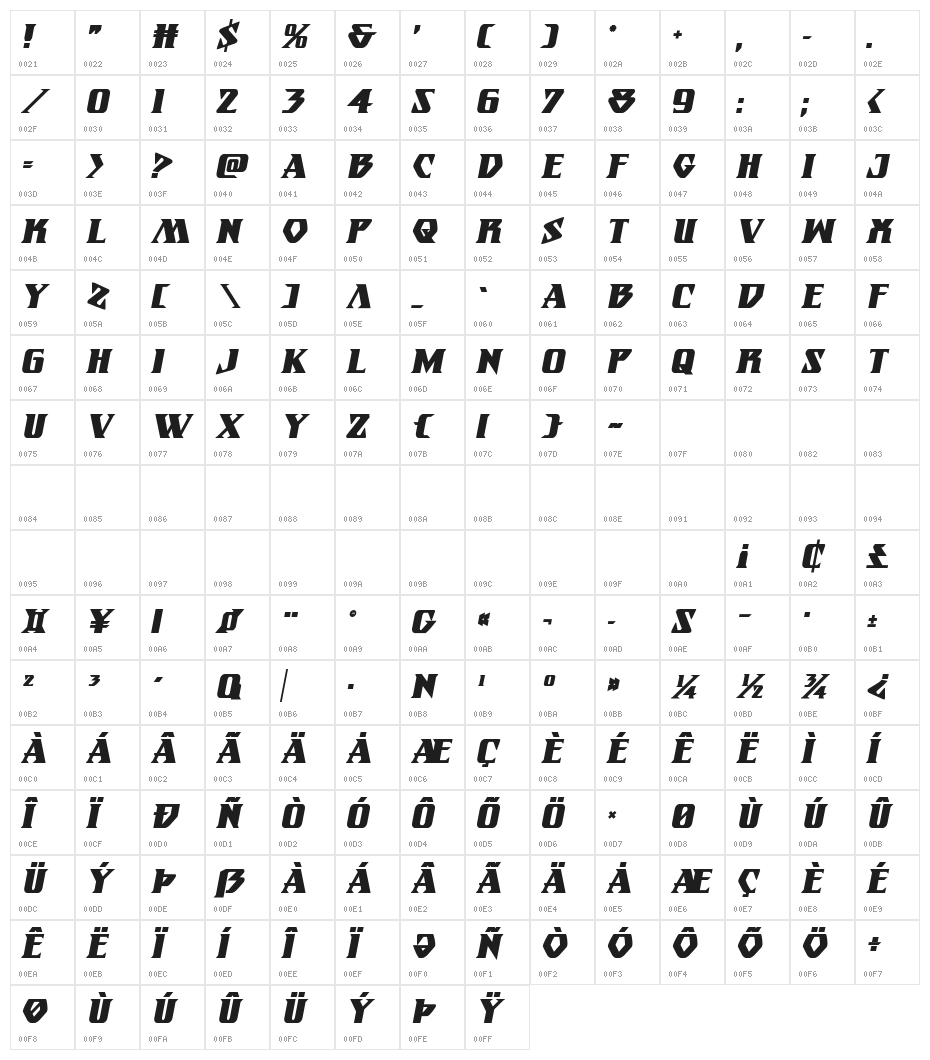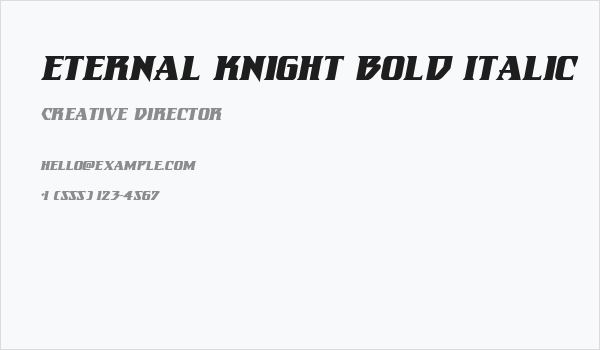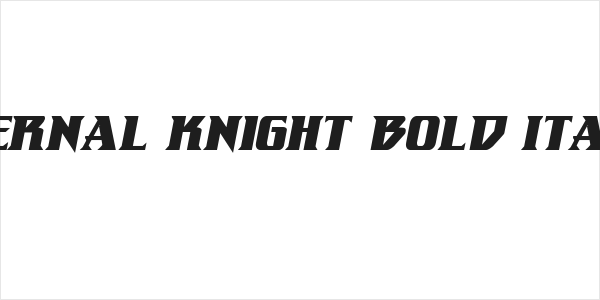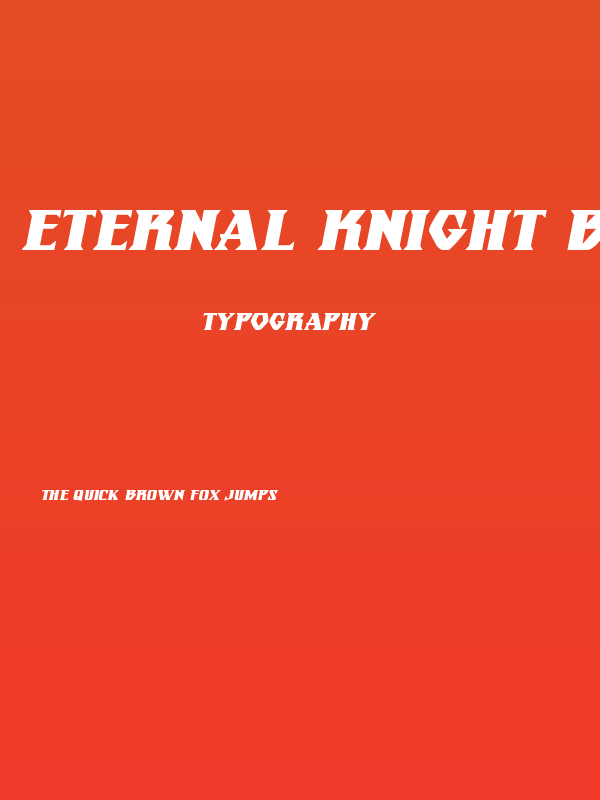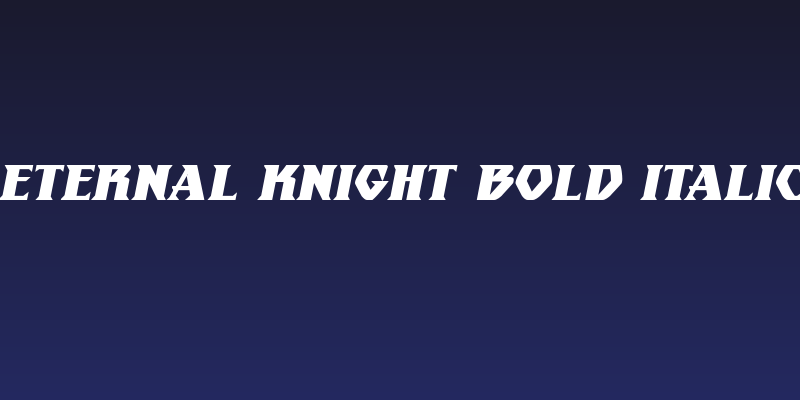
Eternal Knight Bold Italic Font
Eternal Knight Bold Italic Description
This font features a bold and italicized style with sharp, angular edges and a strong presence. The characters are designed with a distinct slant, giving them a dynamic and aggressive look. The uppercase letters are particularly striking, with exaggerated serifs and a sense of movement. The lowercase letters maintain the same boldness, ensuring consistency across the typeface. Numbers and special characters are equally bold and stylized, making them stand out. The overall design is reminiscent of medieval or fantasy themes, suitable for projects that require a dramatic and impactful typeface.
| Proposed Projects | Ideal for fantasy-themed designs, video game titles, movie posters, and branding that requires a bold and dramatic impact. |